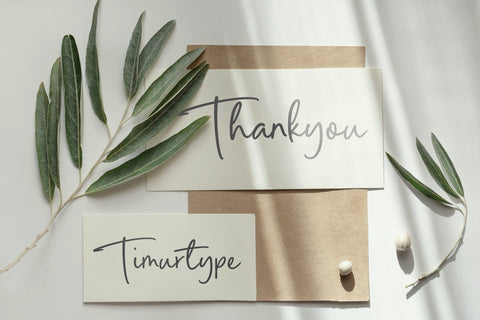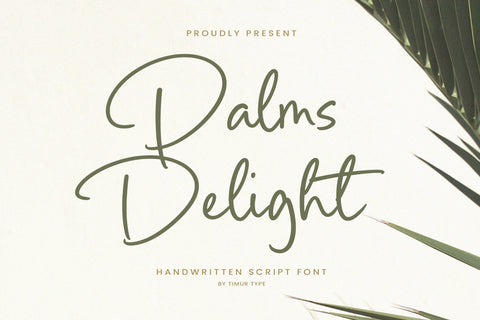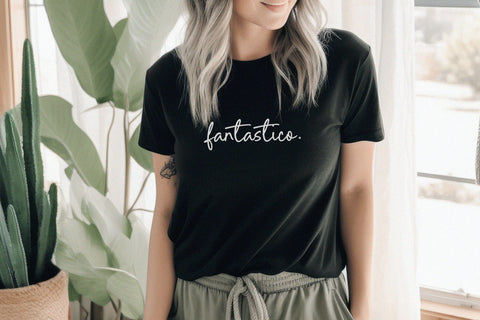
Palms Delight - Handwritten Script Font
Palms Delight is a Handwritten Script Font
This font is a joyful and playful choice for your design projects. With its whimsical and breezy letterforms, this font embodies the carefree spirit of tropical palm trees. The fluid strokes and organic curves give the Palms Delight font a natural and relaxed aesthetic, perfect for adding a laid-back and fun touch to your branding materials, posters, and social media graphics. Whether you're aiming for a beachy and tropical vibe or a casual and friendly look, the Palms Delight font offers versatility and style. Embrace the playful energy of the Palms Delight handwritten script font and infuse your designs with a sense of tropical delight.
Palms Delight Font also supports multilingualism.